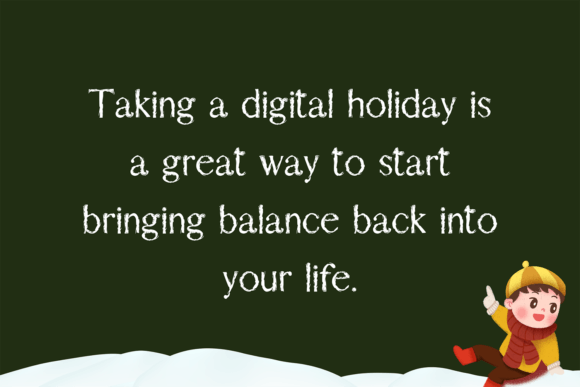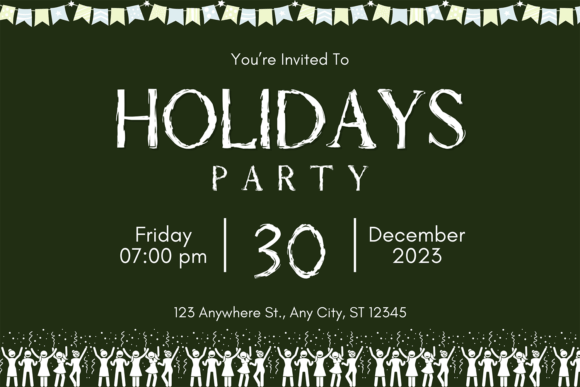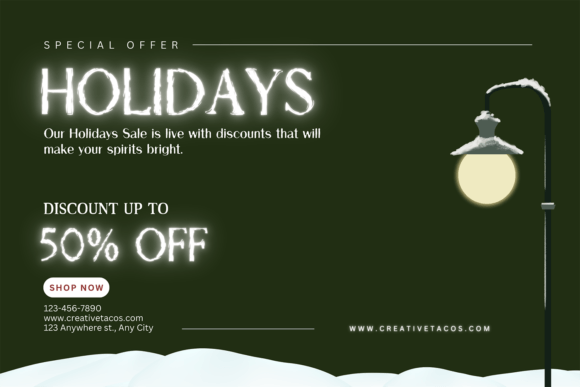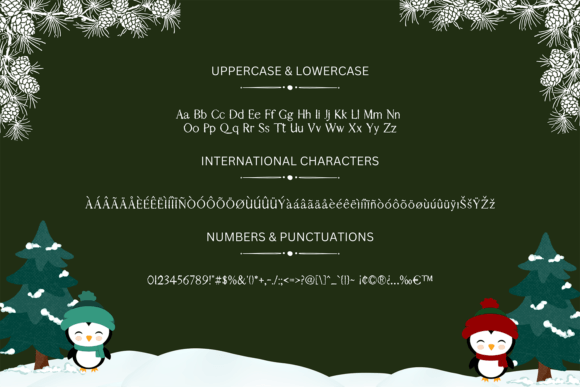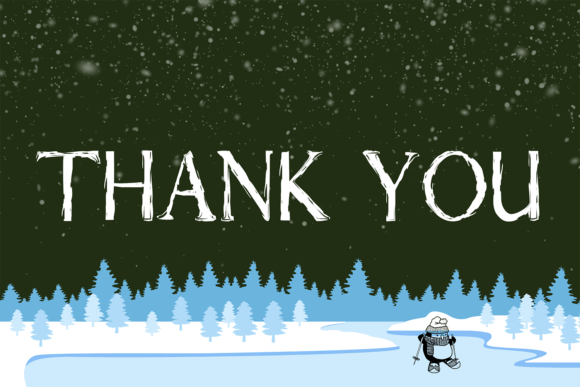
Introducing Croyant Font: Elevate Your Holiday Designs with a Touch of Rustic Charm
Are you looking for a font that can add a trend-setting touch to your holiday designs? Look no further than the Croyant Holidays Font. This versatile font is perfect for designers and crafters who want to create attractive, sophisticated, and modern holiday designs that stand out from the crowd. In this article, we’ll explore the features and benefits of the Croyant font and how it can elevate your creative endeavors.
Key Features of Croyant Font
The Croyant Holidays Font comes with a wide range of features that make it an ideal choice for various design projects. Some of its key features include:
- Uppercase and lowercase letters
- Numbers and punctuation marks
- Symbols and special characters
- Latin extended character support
With these features, you can create a variety of designs, from simple and elegant to complex and ornate. The Croyant font is perfect for designs that require a touch of rustic charm, making it ideal for holiday-themed projects.
Use Croyant Font for a Variety of Design Projects
The Croyant font is versatile and can be used for a wide range of design projects, including:
- Invitations: Create beautiful and elegant invitations for weddings, parties, and other special occasions.
- Packaging designs: Add a touch of rustic charm to your product packaging with the Croyant font.
- Slideshows: Create stunning slideshows for presentations, events, or social media.
- Logos and branding: Use the Croyant font to create unique and memorable logos and branding materials.
- Posters and flyers: Design eye-catching posters and flyers that grab attention.
- Magazine layouts: Create beautiful and engaging magazine layouts with the Croyant font.
- Website designs: Add a touch of elegance and sophistication to your website designs.
- Advertising: Use the Croyant font to create stunning ad campaigns that stand out.
- Book covers: Design beautiful and eye-catching book covers with the Croyant font.
Benefits of Using Croyant Font
The Croyant font offers several benefits to designers and crafters, including:
- Elegance and sophistication: The Croyant font adds a touch of elegance and sophistication to your designs, making them perfect for high-end projects.
- Rustic charm: The font’s rustic charm makes it ideal for holiday-themed projects and designs that require a vintage or distressed look.
- Versatility: The Croyant font is versatile and can be used for a wide range of design projects, from simple to complex.
- Easy to read: The font is easy to read, making it perfect for designs that require clear and concise communication.
Tips for Using Croyant Font
Here are some tips for using the Croyant font effectively:
- Pair it with other fonts: Pair the Croyant font with other fonts to create a unique and visually appealing design.
- Experiment with colors: Experiment with different colors to find the perfect combination that complements your design.
- Use it for headlines and titles: Use the Croyant font for headlines and titles to add a touch of elegance and sophistication.
- Keep it simple: Keep your design simple and elegant to let the Croyant font shine.